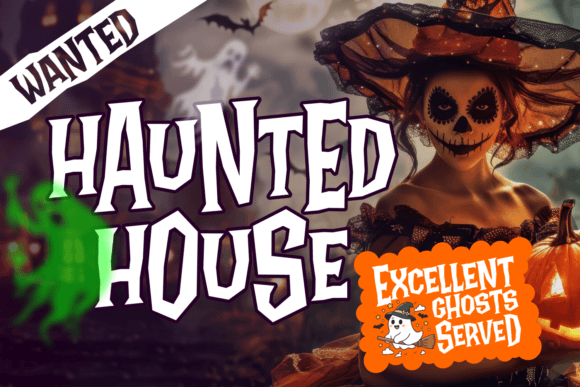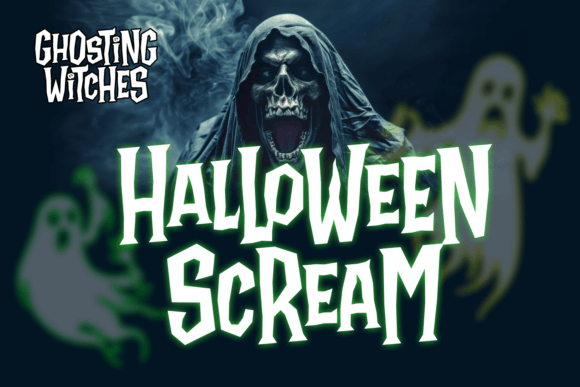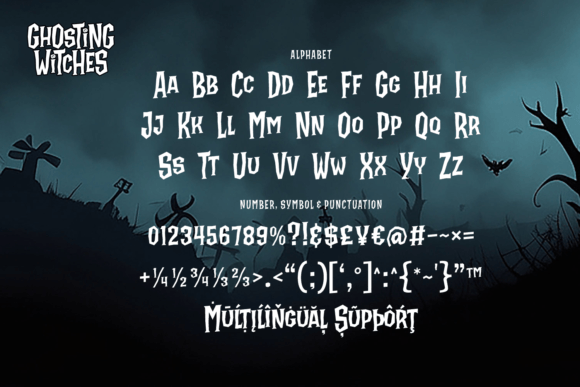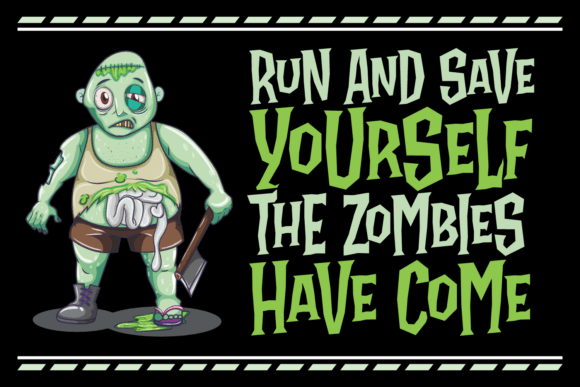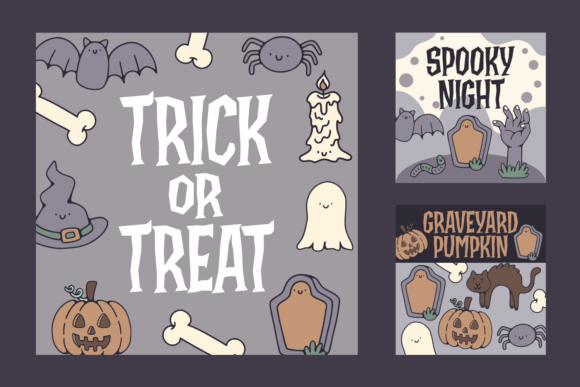
Unleash the Spooky Charm with Ghosting Witches Font: A Halloween-Inspired Masterpiece
As the witching hour approaches, designers and crafters are on the lookout for the perfect font to add a touch of eerie elegance to their Halloween-themed projects. Look no further than the Ghosting Witches font, a spellbinding typeface that conjures up a world of horror, humor, and whimsy. In this article, we’ll take you on a journey into the realm of Ghosting Witches, exploring its unique features, and how it can elevate your designs to new heights of spooky sophistication.
A Font that Casts a Spell
Ghosting Witches is a Halloween-inspired font that embodies the essence of the spookiest season. With its ingenious mix of ethereal spirits, daunting undead, jovial jack-o’-lanterns, malevolent witches, fantastical arachnids, and covert cadavers, this font is the perfect textual ally for those who dare to be different. Whether you’re designing invitations, decorations, or digital content, Ghosting Witches will transport your audience to a realm of wonder and terror.
A World of Bewitching Charm
Imagine a world where bewitching candies, dynamic Draculas, spectral illusions, imaginative apparel, twinkling candlelight, impish Halloween antics, dreary burial grounds, magical black cats, chilling enigmas, pulsating October festivities, and spine-tingling shrieks come together in perfect harmony. This is the world of Ghosting Witches, where each letter weaves together a captivatingly spectral narrative. With this font, you’ll be able to craft designs that are both eerie and enchanting, perfect for capturing the essence of Halloween.
Design Possibilities are Endless
The versatility of Ghosting Witches font is one of its most striking features. Whether you’re a designer, crafter, or DIY enthusiast, this font can be used to create a wide range of projects, including:
- Halloween invitations and party decorations
- Eerie posters and flyers
- Spooky digital content, such as social media graphics and blog posts
- Creepy crafts, like pumpkin carvings and haunted house signs
- Even haunted merchandise, like t-shirts and mugs
What Makes Ghosting Witches Font So Special?
So, what sets Ghosting Witches apart from other fonts? Here are a few features that make it truly unique:
- Ethereal and eerie: Ghosting Witches has an otherworldly quality that will transport your designs to a realm of spooky wonder.
- Playful and humorous: Despite its eerie nature, this font has a playful side, making it perfect for designs that require a touch of humor.
- Highly versatile: Ghosting Witches can be used for a wide range of projects, from digital content to crafts and merchandise.
- Captivating narrative: Each letter in this font tells a story, weaving together a spectral narrative that’s sure to captivate your audience.
Get Ready to Cast a Spell with Ghosting Witches Font
If you’re looking for a font that will add a touch of magic to your Halloween designs, look no further than Ghosting Witches. With its unique blend of horror, humor, and whimsy, this font is sure to cast a spell on your audience. So, don’t wait – get ready to unleash the spooky charm of Ghosting Witches font and make your designs howl with delight!
In conclusion, Ghosting Witches font is a Halloween-inspired masterpiece that will elevate your designs to new heights of spooky sophistication. With its captivating narrative, eerie elegance, and playful humor, this font is the perfect textual ally for designers and crafters who dare to be different. So, take a journey into the world of Ghosting Witches and discover the magic for yourself.